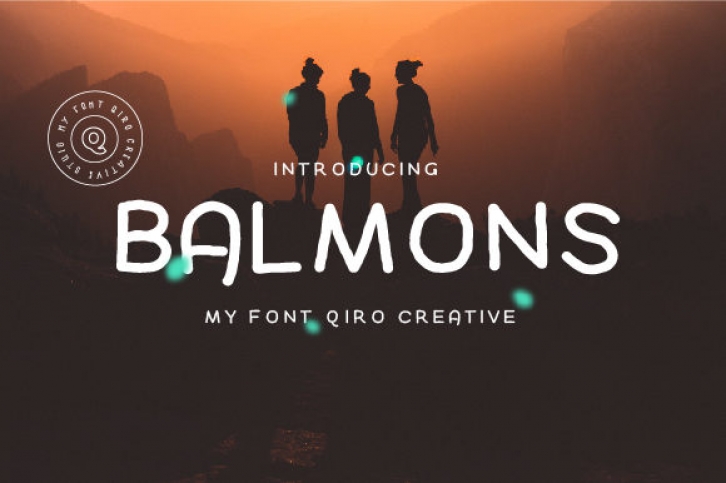
Balmons is a simple and neat lettered display font. Its friendly style makes this font incredibly versatile, fitting a wide range of designs. Add it to your creative projects and notice how it will make them stand out!